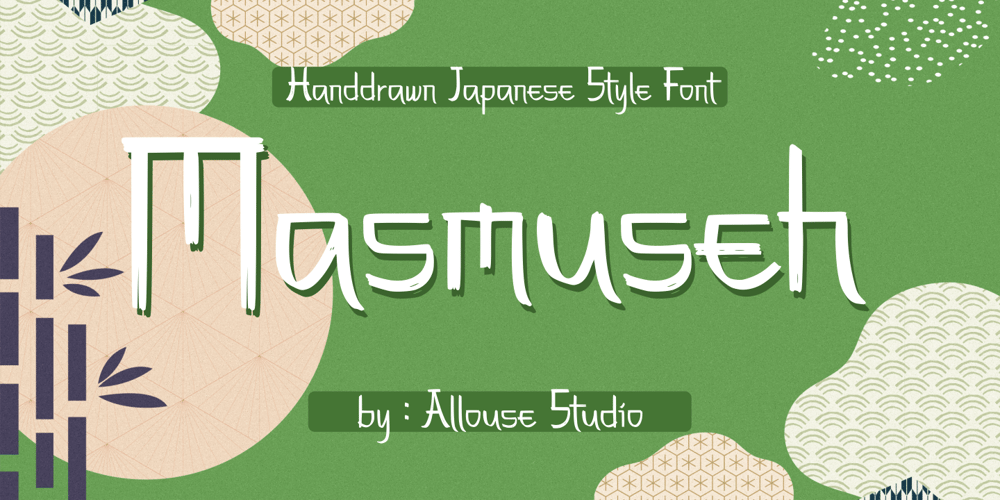
Masmuseh Font Family was designed by Fachrizal Yusuf and published by Allouse Studio. Masmuseh contains 1 styles and family package options. Proudly Presenting, Masmuseh a Handdrawn Japanese Style Font that bring an Japanese feel.Masmuseh is perfect for any tittles, logo, product packaging, branding project, megazine, social media, wedding, or just used to express words above the background.Masmuseh also come with Multi-Lingual Support.Enjoy the font, feel free to comment or feedback, send me PM or email. Thank You!